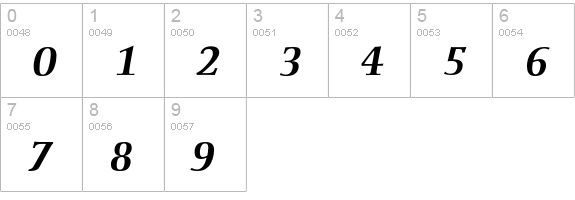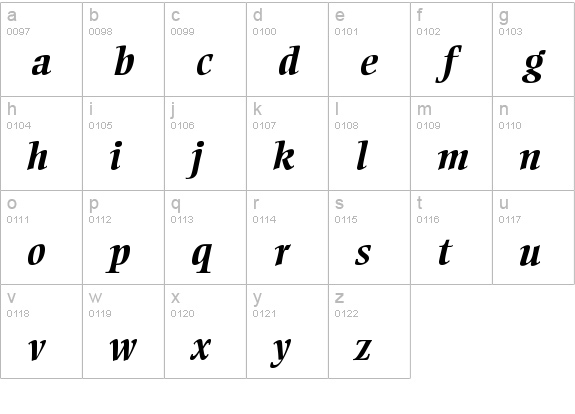
Ellington Bold Italic is a strong, high-contrast, italic variant in the Ellington typeface family \xE2\x80\x94 well suited to headlines, attention-grabbing titles, and strong calls-to-action.
Ellington Bold Italic is a sophisticated and elegant font that exudes a sense of modernity and style. Its sleek and flowing lines create a striking visual impact that is perfect for adding a touch of sophistication to any design project. The bold italic style adds a dynamic flair, making it ideal for headlines, branding, and editorial design. What's more, Ellington Bold Italic is available for free download at FontsMarket.com. This means that you can easily access this high-quality font without any cost, making it a valuable addition to your font collection. Whether you're working on a professional project or a personal creation, Ellington Bold Italic is sure to elevate your designs with its unique charm and versatility. Download it today and unleash your creativity with this stunning typeface.